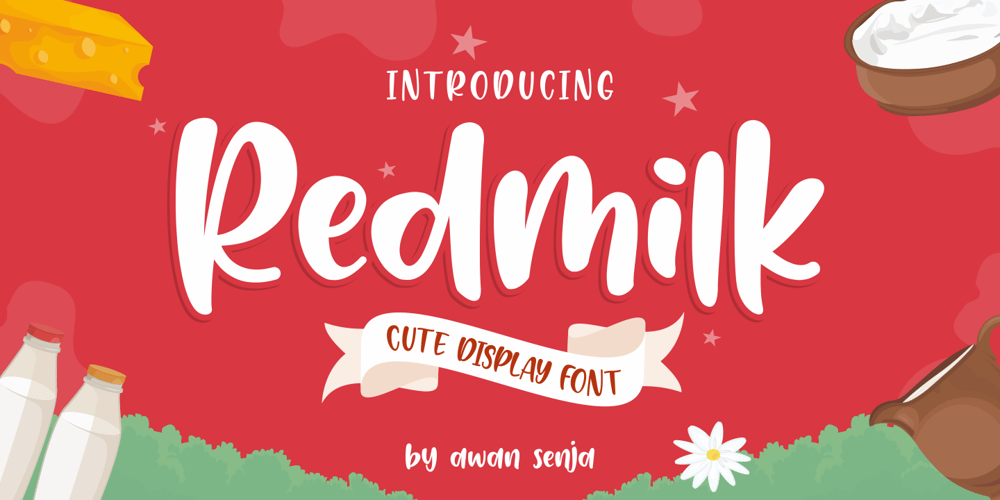
Redmilk Font Family was designed by Riyadh Abuhafs and published by Awan Senja. Redmilk contains 1 styles and family package options. Redmilk embodies fun, quirkiness and authenticity. This enchanting handwritten font will turn any creative idea into a true standout. Get inspired by its authentic feel and use it to create gorgeous wedding invitations, beautiful stationary art, eye-catching social media posts, and cute greeting cards.